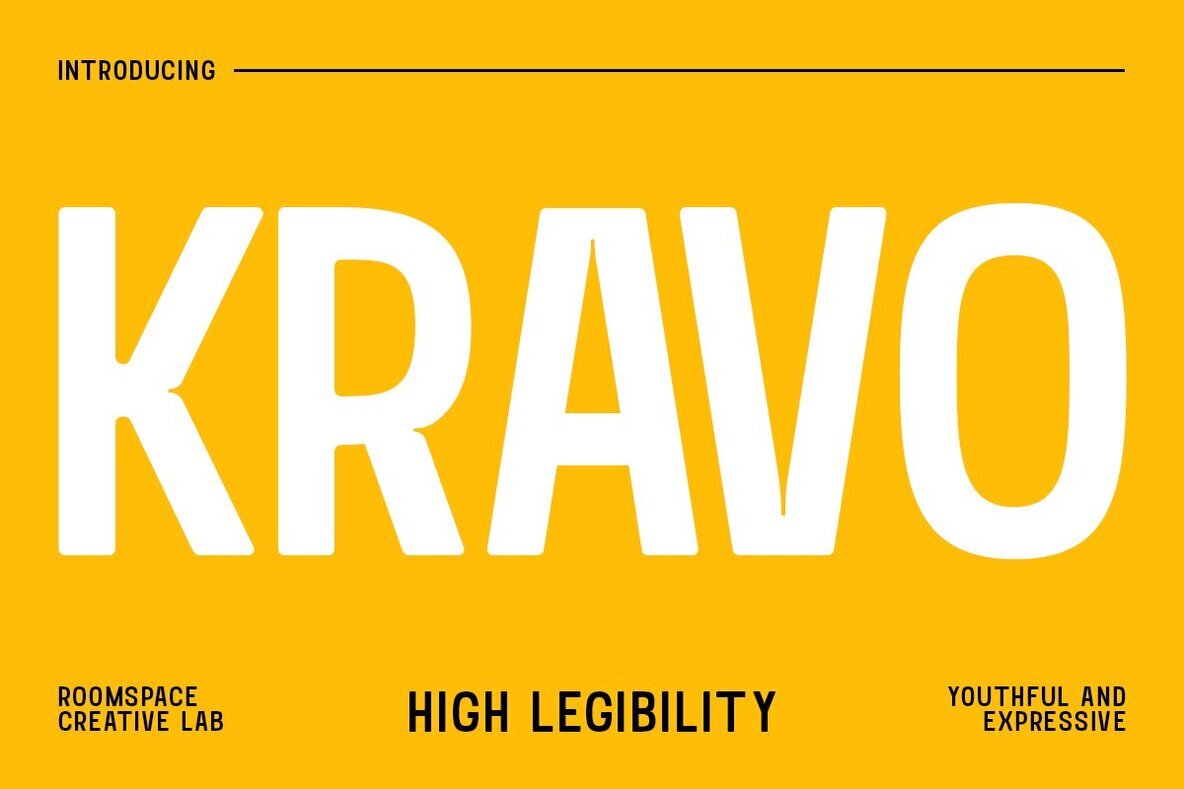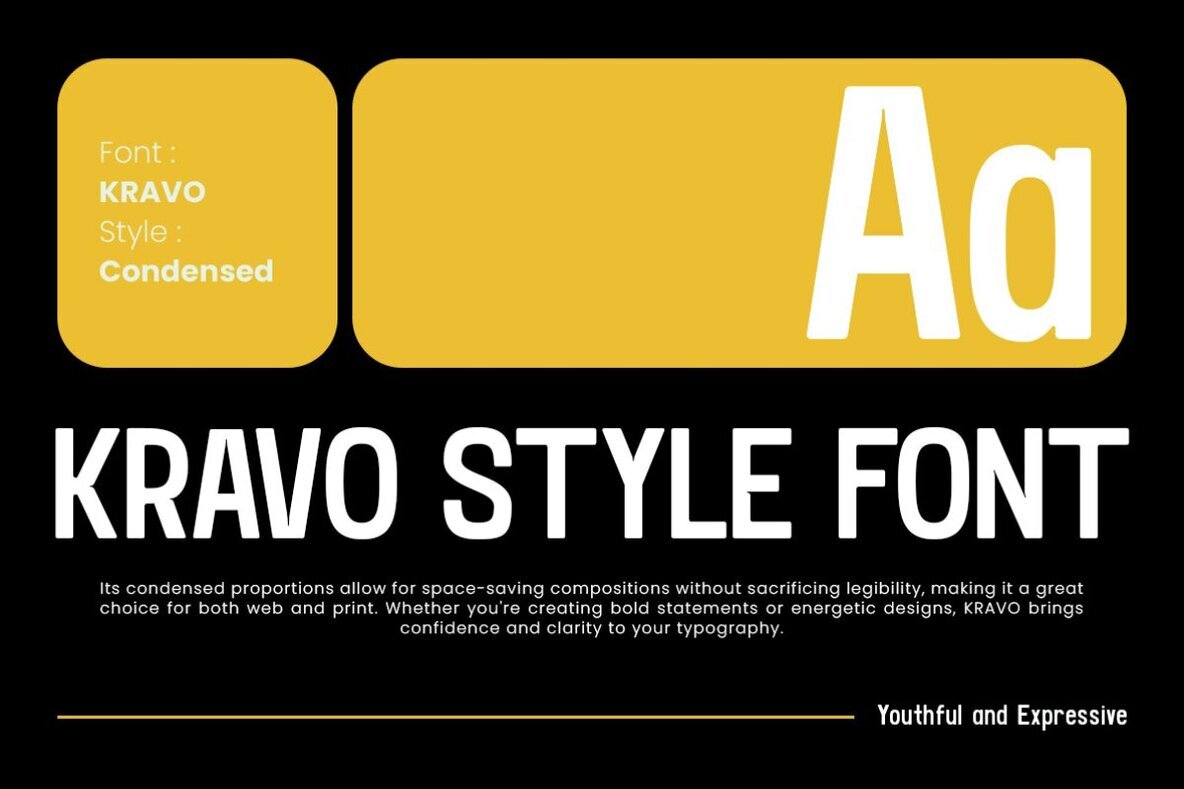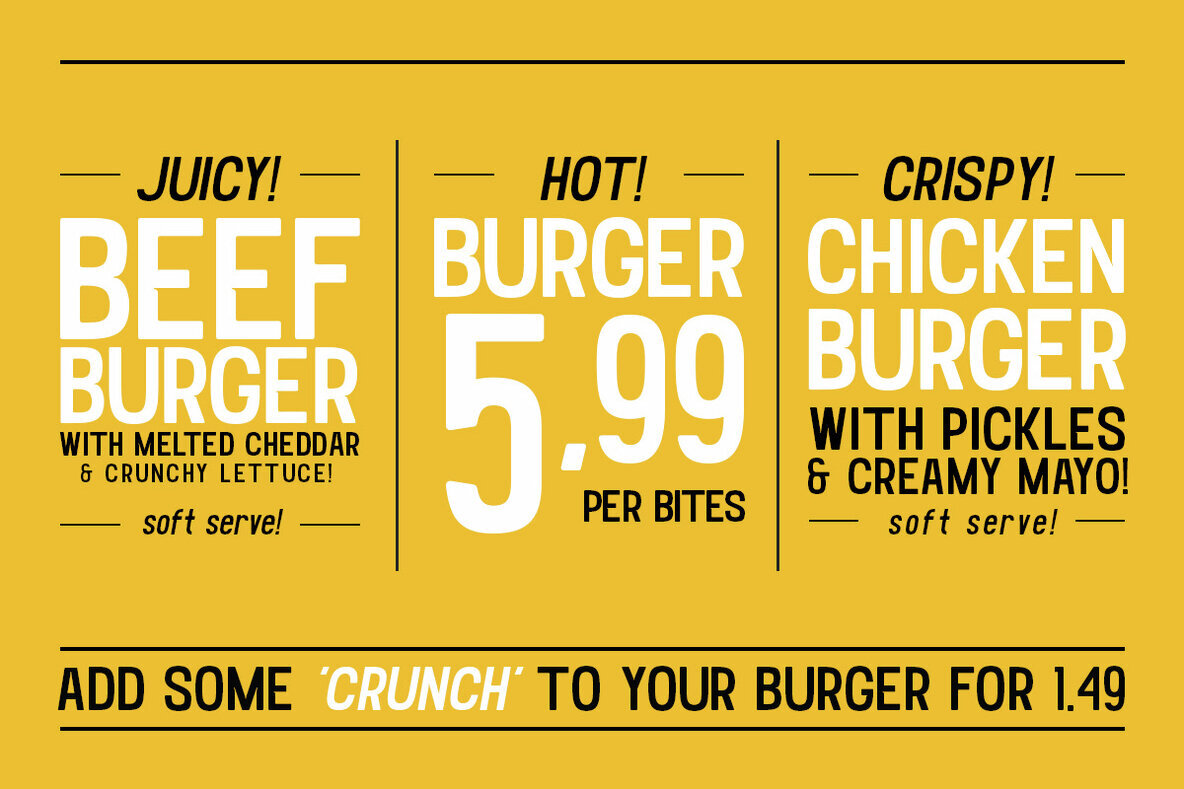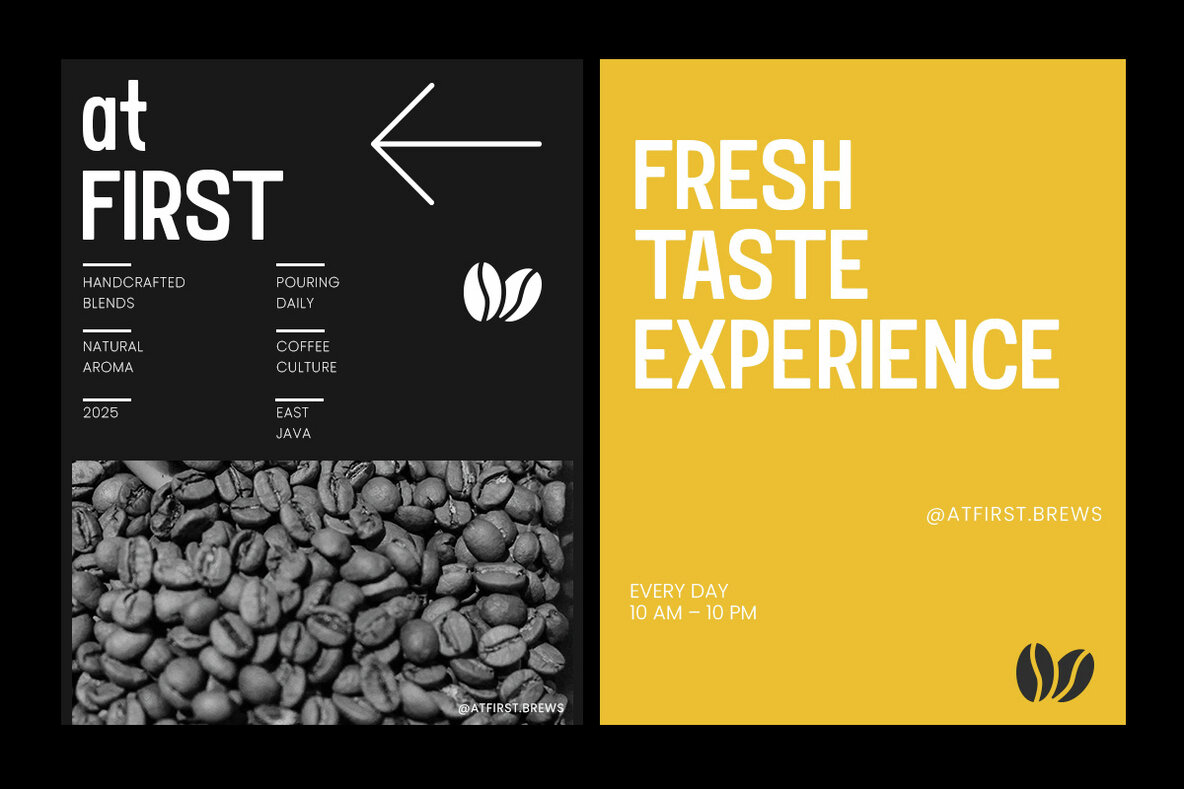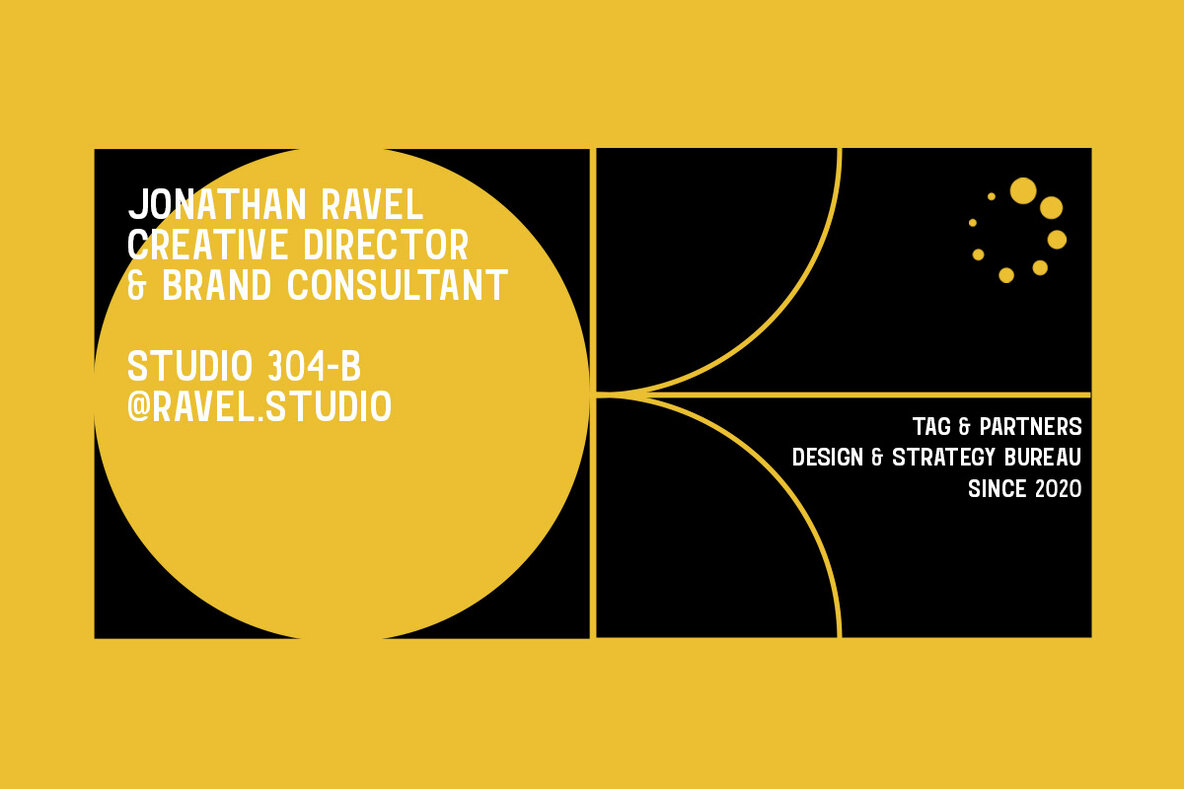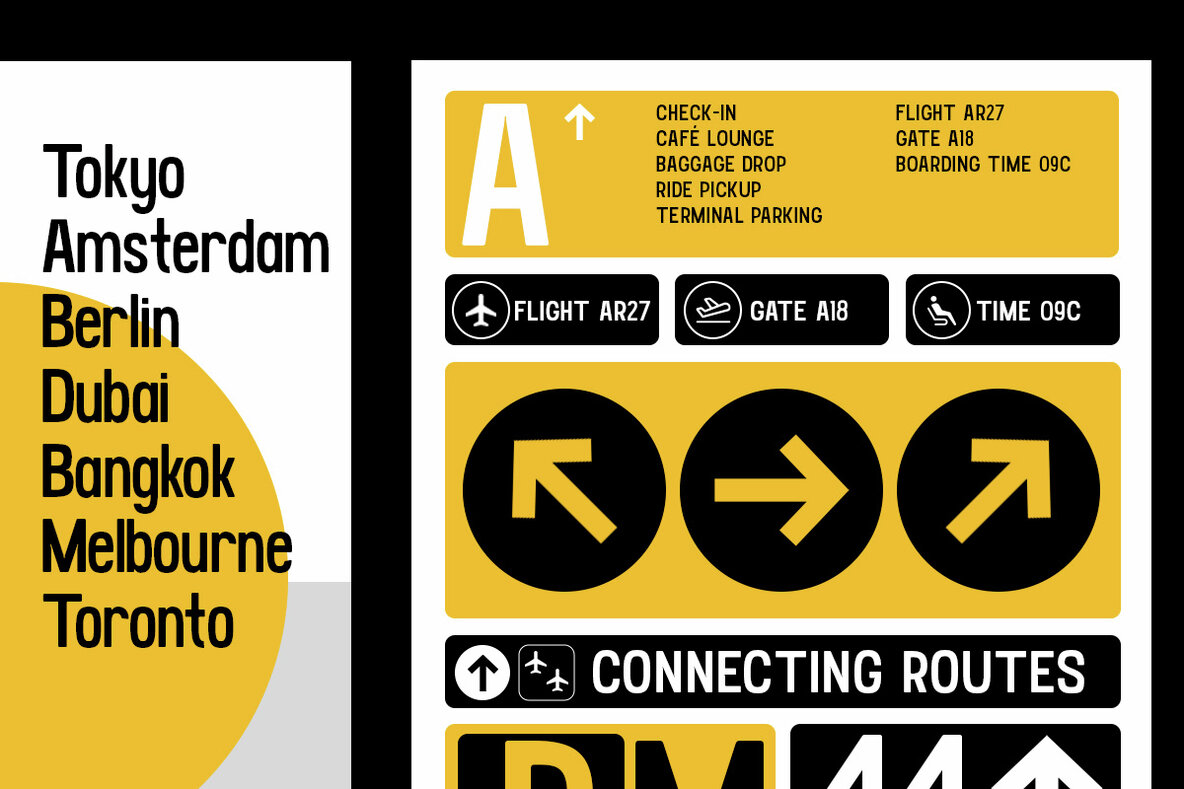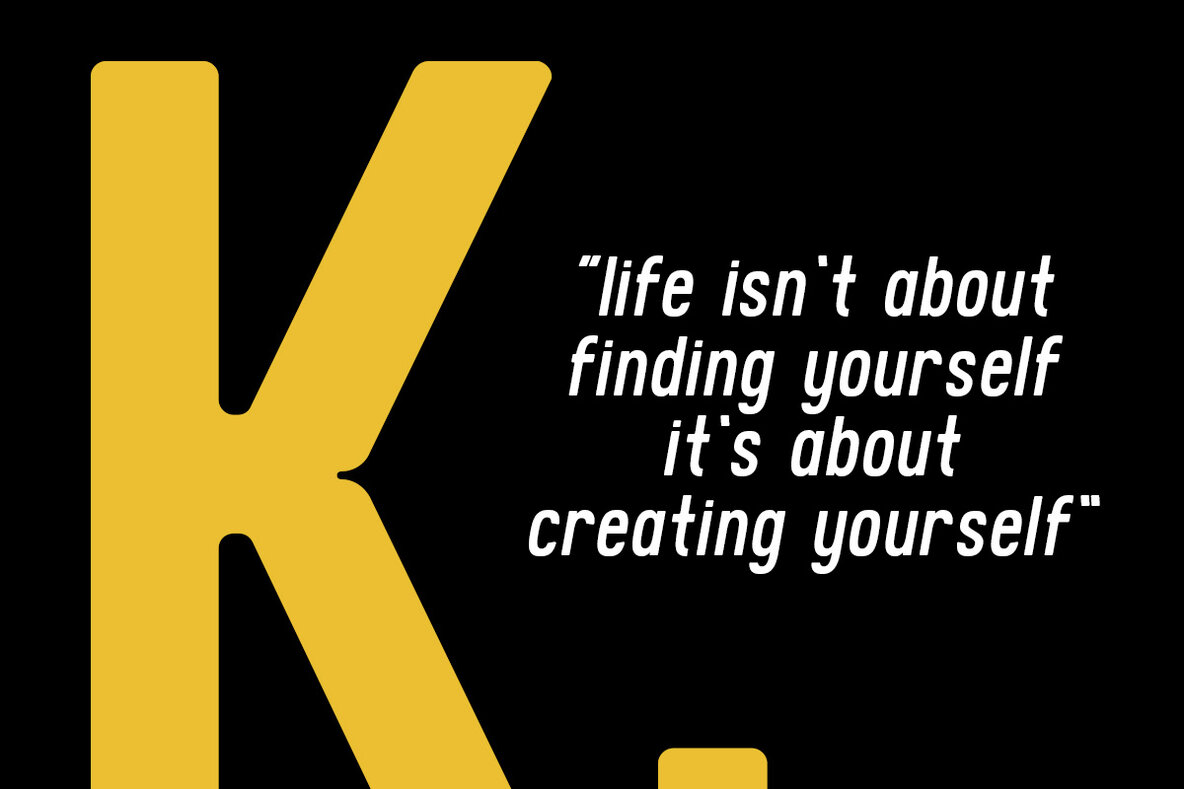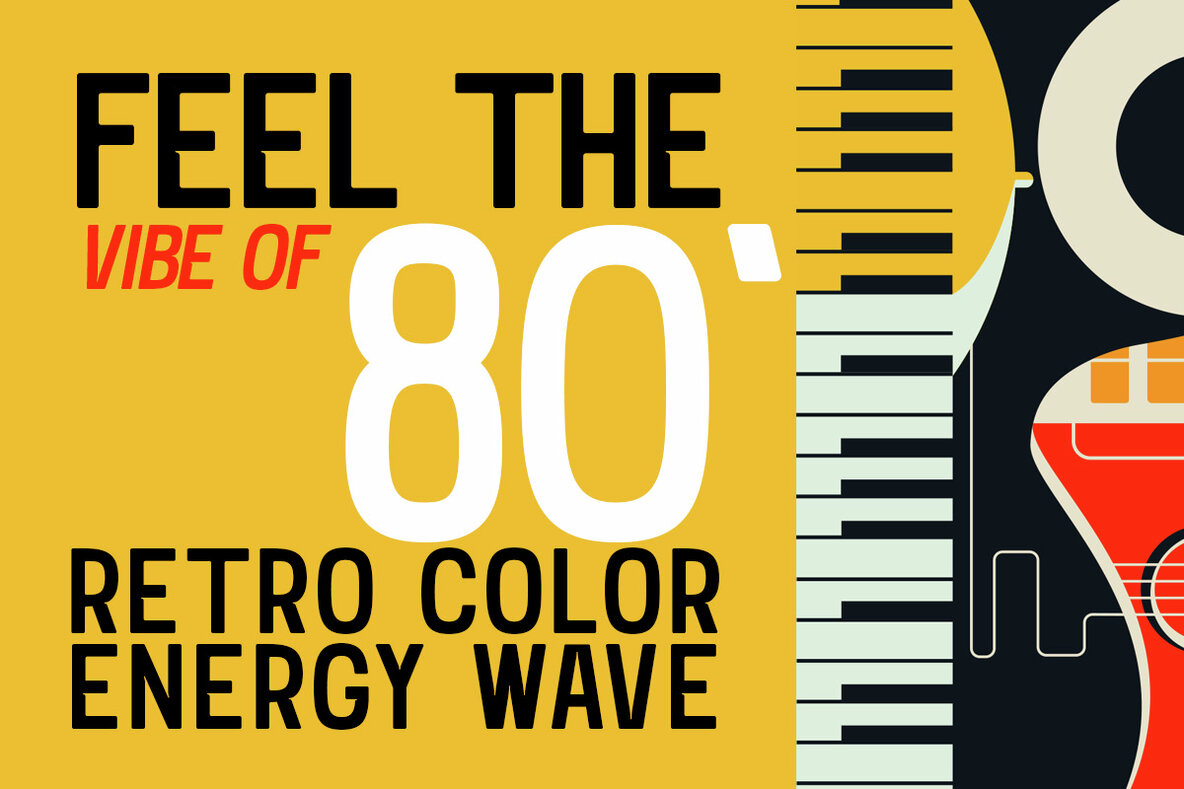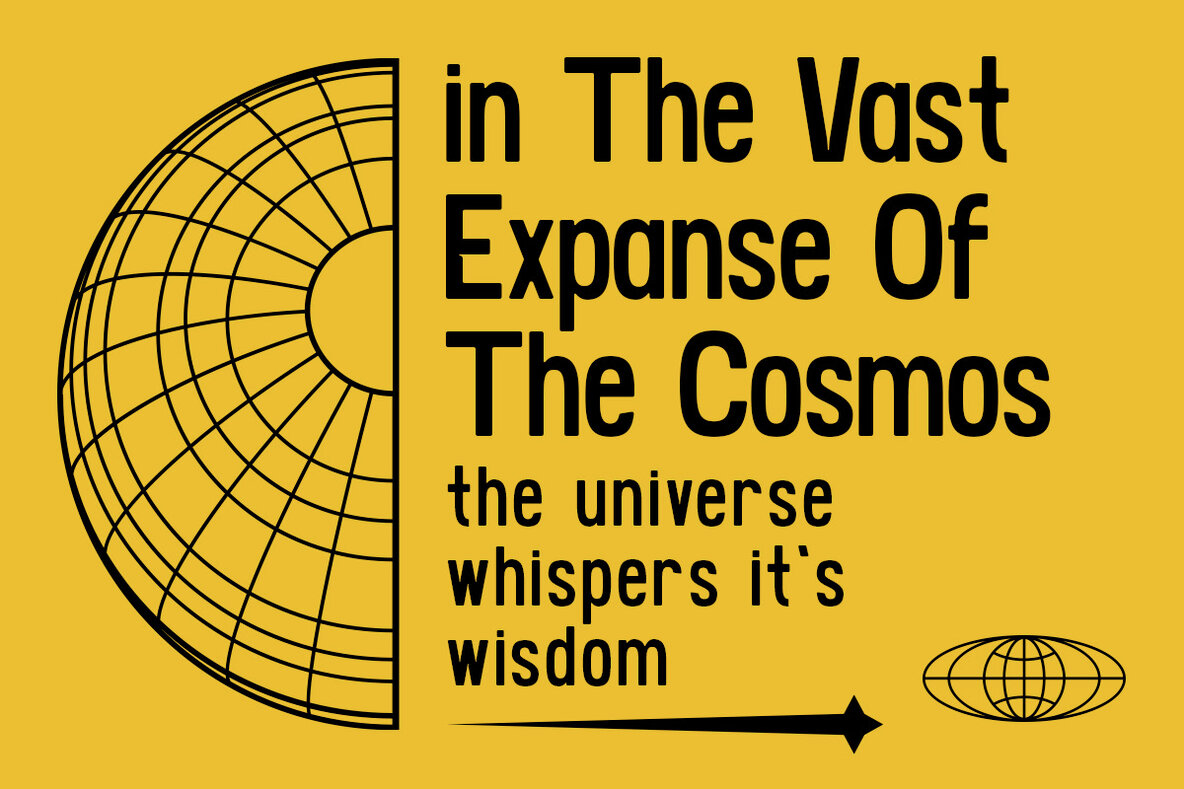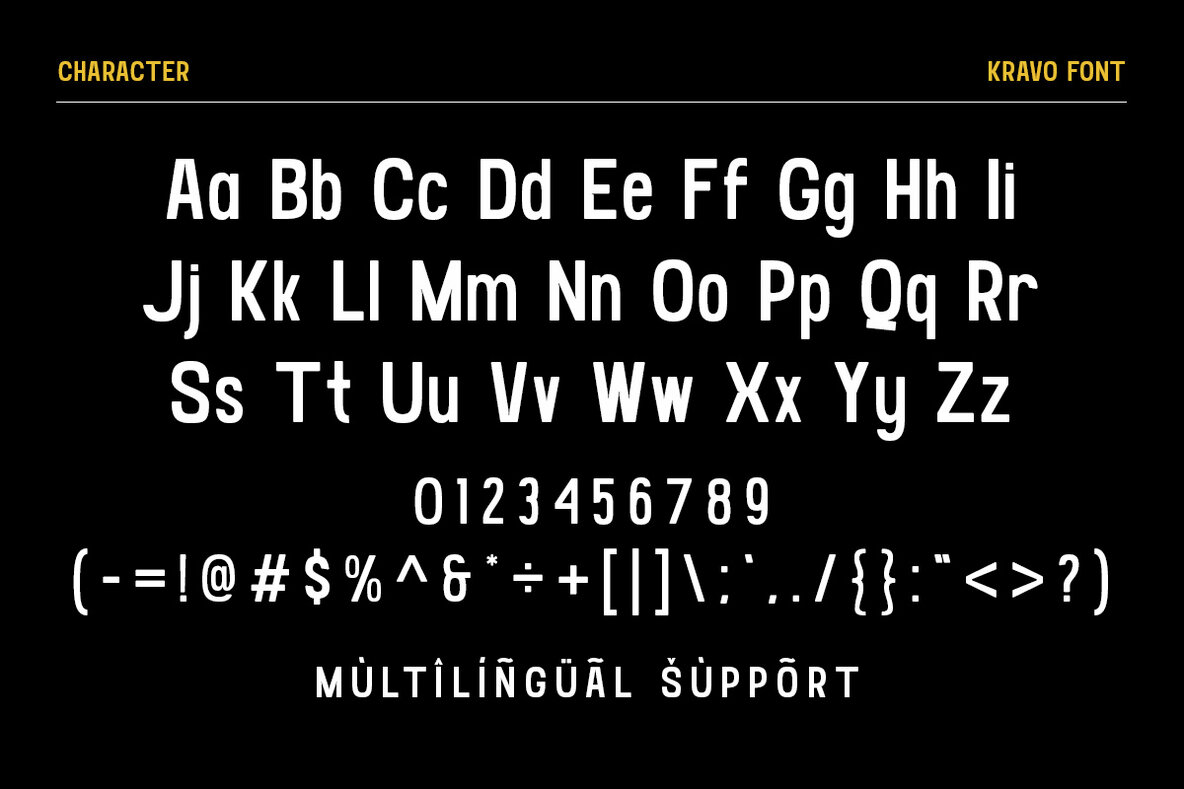
Kravo Font
Discover Kravo, a striking and condensed sans serif typeface designed to capture attention and leave a memorable impact. With its tall structure and compact letterforms, Kravo ensures high legibility while optimizing space, making it an ideal choice for headlines, posters, editorial titles, and distinctive branding. The clean lines and modern aesthetic lend clarity with character, perfect for designers aiming to make a bold statement without overwhelming their layout. Ideal for digital graphics, magazine covers, web headers, or campaign visuals, Kravo enhances your text with volume and presence. Its bold yet readable design meets contemporary needs, offering versatility across various projects. Kravo isn't just a font—it's a voice: loud, clear, and confident.Kravo Sans Serif Typeface